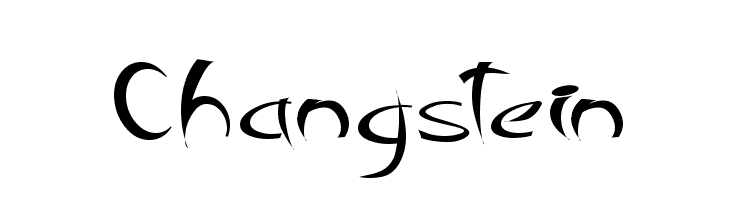
A pixelated, retro-style font with a blocky, digital appearance.
A classic script font with elegant, flowing lines and ornate uppercase letters.
A futuristic, italicized font with sharp angles and a sleek design.
A delicate, handwritten-style font with thin, flowing lines.
A bold, playful font with rounded characters and a modern style.
A playful, hand-drawn font with tall, narrow characters and a whimsical style.
A decorative and historical script with intricate, bold characters.
A bold, sketch-style font with a hand-drawn, artistic appearance.
A bold, futuristic font with geometric shapes and sharp angles.
A playful, handwritten font with smooth, consistent strokes.